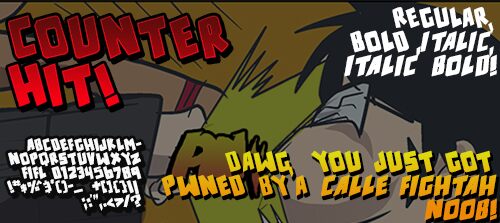
Counter Hit! Italic from Press Gang Studios is a free comic display font with a hard forward lean and dense, angular capitals. Deep notches, clipped joins, and uneven stroke widths make the lettering look fast and hand-cut.
In game graphics, its compressed silhouettes and sudden diagonal cuts suit fighting-game titles, score screens, and promotional art. The same aggressive shapes fit sports posters, action-comic covers, and music merchandise, where the letters can become part of a logo or impact burst rather than ordinary text.